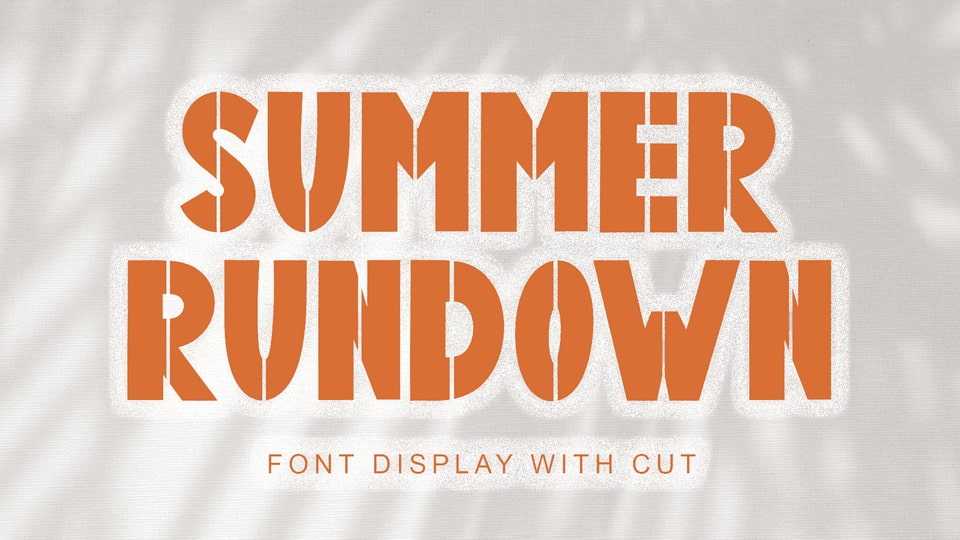
Download Summer Rundown font, a unique and split display typeface. It is very suitable for use in summer, spring, camping, holiday, vacation, banner, poster, business branding, sticker and others.